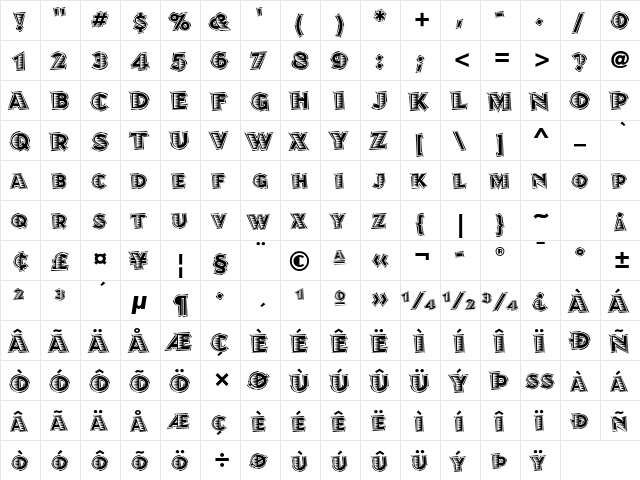
Juanita Lino ITC Std Regular
| Designer | Luis Siquot |
Design Context for Juanita Lino ITC Std Typeface
Juanita Lino ITC Std is a composed and adaptable typeface that performs quietly and consistently across a wide range of design contexts.
Pro Tip: Use Juanita Lino ITC Std in both headline and body roles to test its range before committing to a single application.